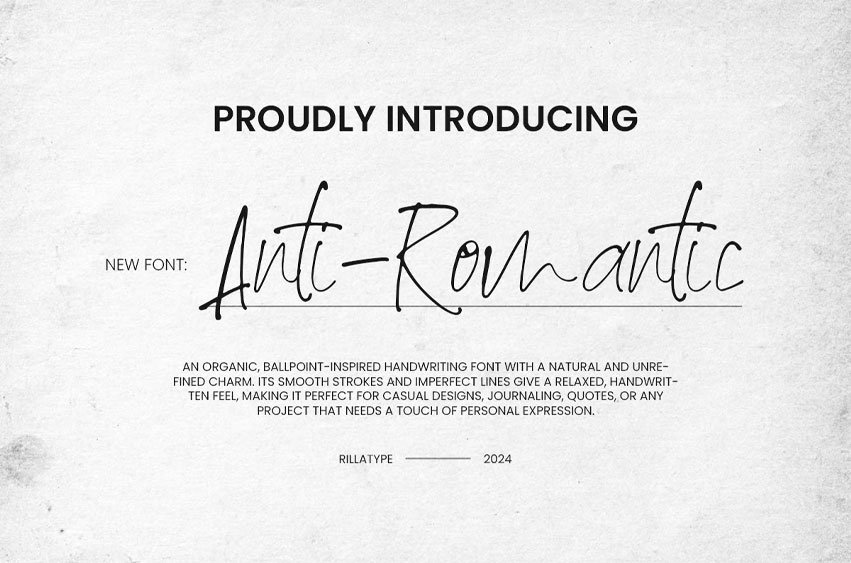
Anti-Romantic Font ballpoint-inspired handwriting font with a natural and unrefined charm. its smooth strokes and imperfect lines give a relaxed, handwritten feel, making it perfect for casual designs, journaling, quotes, or any project that needs a touch of personal expression.